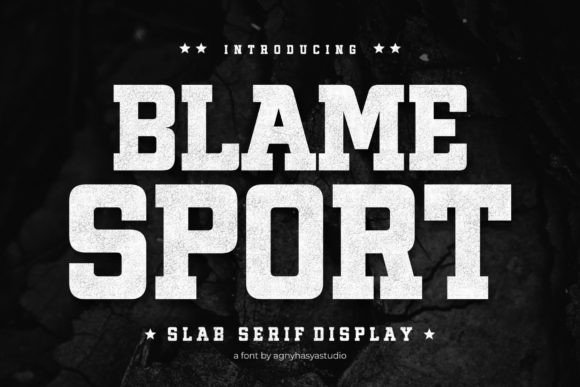
Introducing Blame Sport Font: The Ultimate Typeface for Sports and Fitness Designs
In the world of sports and fitness, style and energy are everything. Whether you’re designing a logo for a professional sports team, creating a brand identity for a fitness studio, or simply looking for a font that can capture the essence of competitive sports, you need a typeface that can deliver. That’s where Blame Sport comes in – a contemporary athletic slab serif typeface designed to bring the excitement and dynamism of sports and fitness to your designs.
What is Blame Sport Font?
Blame Sport is a modern slab serif typeface that embodies the energy, strength, and style of competitive sports, gym culture, and street style. This font is not just a collection of letters and numbers; it’s an experience – a fusion of the raw, edgy elements of sports and fitness with the sophistication and elegance of a high-end typeface.
The Inspiration Behind Blame Sport
The creators of Blame Sport drew inspiration from the world’s most popular sports, including American Football, Tennis, and Boxing. They wanted to capture the adrenaline rush of competition, the grit and determination of athletes, and the vibrant energy of the sports culture. The result is a font that is both bold and beautiful, perfect for designs that require a strong, sporty aesthetic.
Benefits of Using Blame Sport Font
- Unique and Memorable: Blame Sport is a one-of-a-kind typeface that will set your designs apart from the competition.
- Highly Versatile: This font can be used for a wide range of applications, from sports logos and branding to fitness and lifestyle designs.
- Edgy and Modern: Blame Sport brings a fresh, contemporary feel to your designs, perfect for targeting a younger, urban audience.
- Easy to Read: Despite its bold and edgy appearance, Blame Sport is highly legible, making it perfect for use in headlines, titles, and body copy.
Who Can Benefit from Using Blame Sport Font?
Blame Sport is an excellent choice for designers, marketers, and businesses working in the sports, fitness, and lifestyle industries. This includes:
- Sports teams and leagues
- Fitness studios and gyms
- Sports apparel and equipment manufacturers
- Lifestyle and fashion brands
- Advertising agencies and marketing firms
How to Use Blame Sport Font in Your Designs
Blame Sport is an incredibly versatile typeface that can be used in a variety of design applications. Here are some ideas to get you started:
- Logos and Branding: Use Blame Sport to create bold, memorable logos for sports teams, fitness studios, or lifestyle brands.
- Headlines and Titles: Add a touch of energy and excitement to your headlines and titles with Blame Sport’s bold, edgy aesthetic.
- Body Copy: Use Blame Sport for body copy to add a modern, urban feel to your designs.
- Advertising: Blame Sport is perfect for use in advertising campaigns targeting sports enthusiasts and fitness enthusiasts.
In conclusion, Blame Sport is a game-changing typeface that brings the energy, strength, and style of competitive sports and fitness to your designs. With its unique blend of boldness, elegance, and versatility, Blame Sport is the perfect choice for designers, marketers, and businesses working in the sports, fitness, and lifestyle industries. Whether you’re looking to create a bold logo, add excitement to your headlines, or simply bring a modern feel to your designs, Blame Sport is the ultimate typeface for sports and fitness designs.